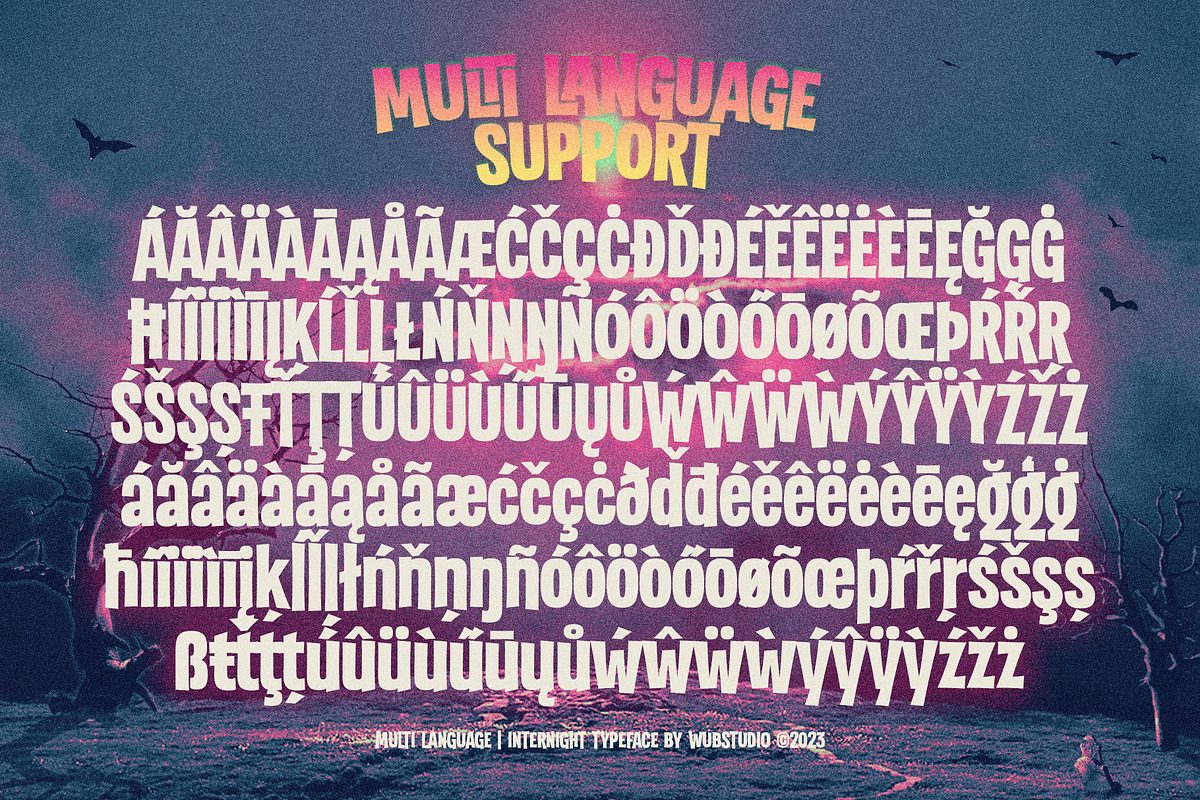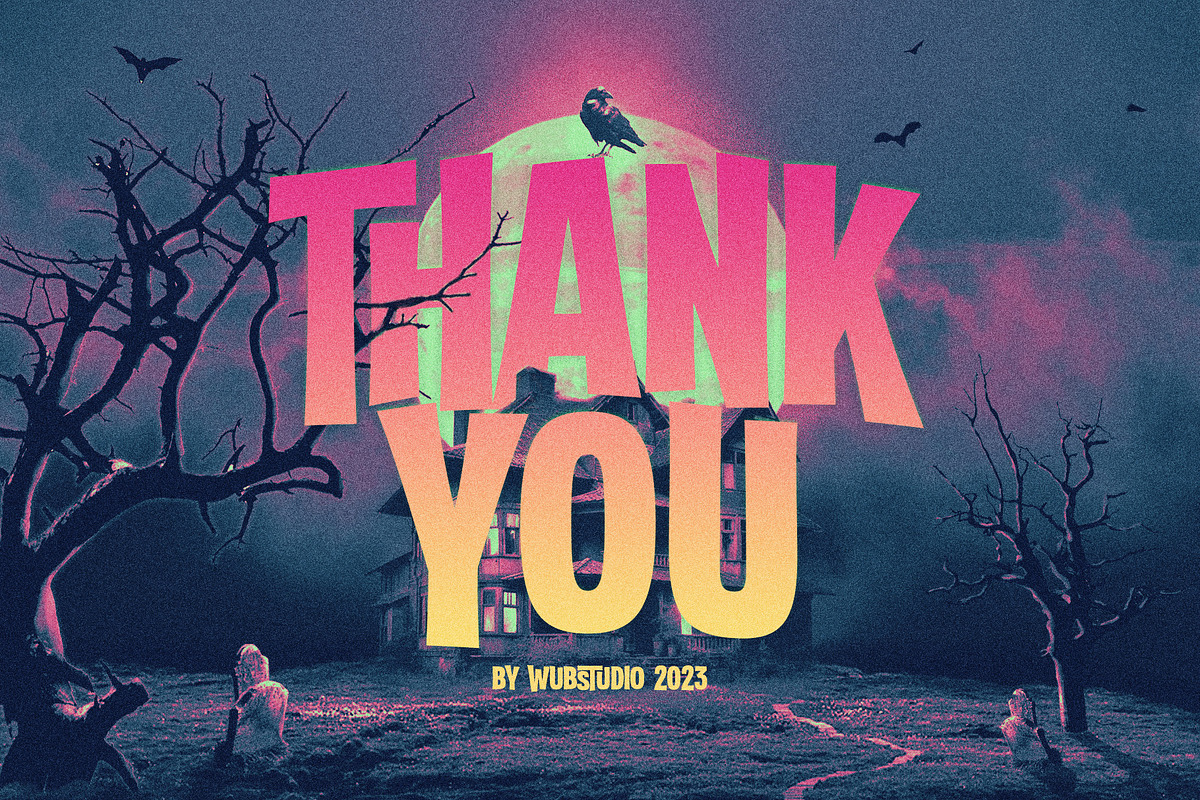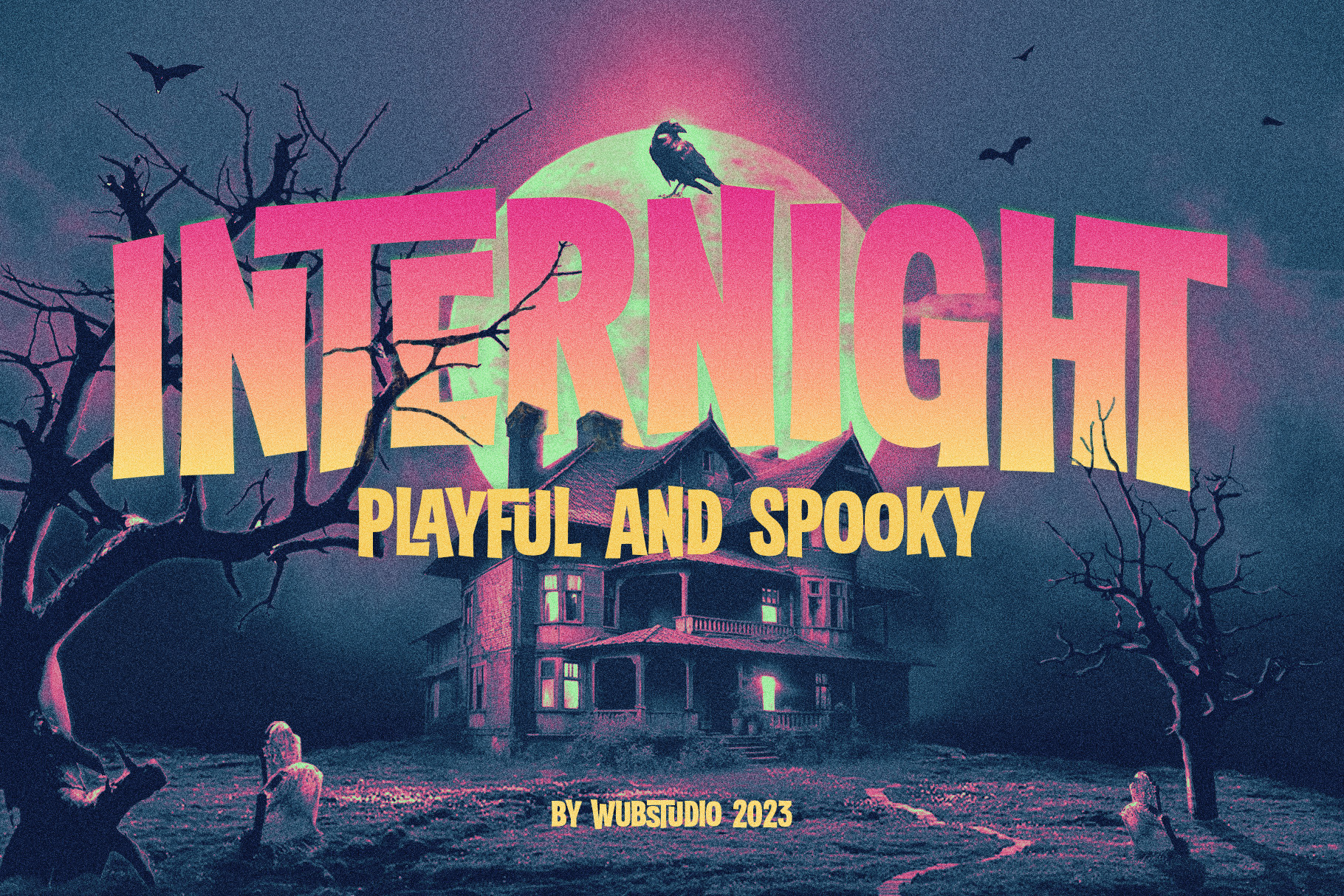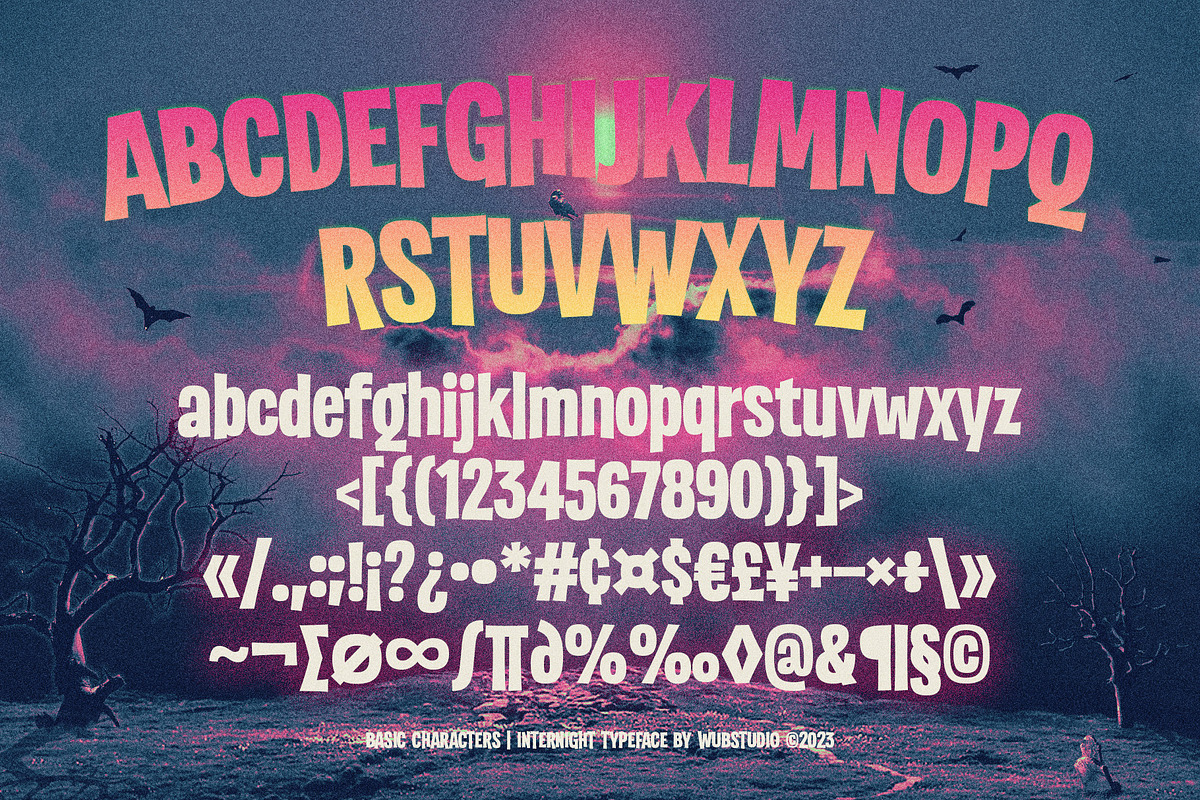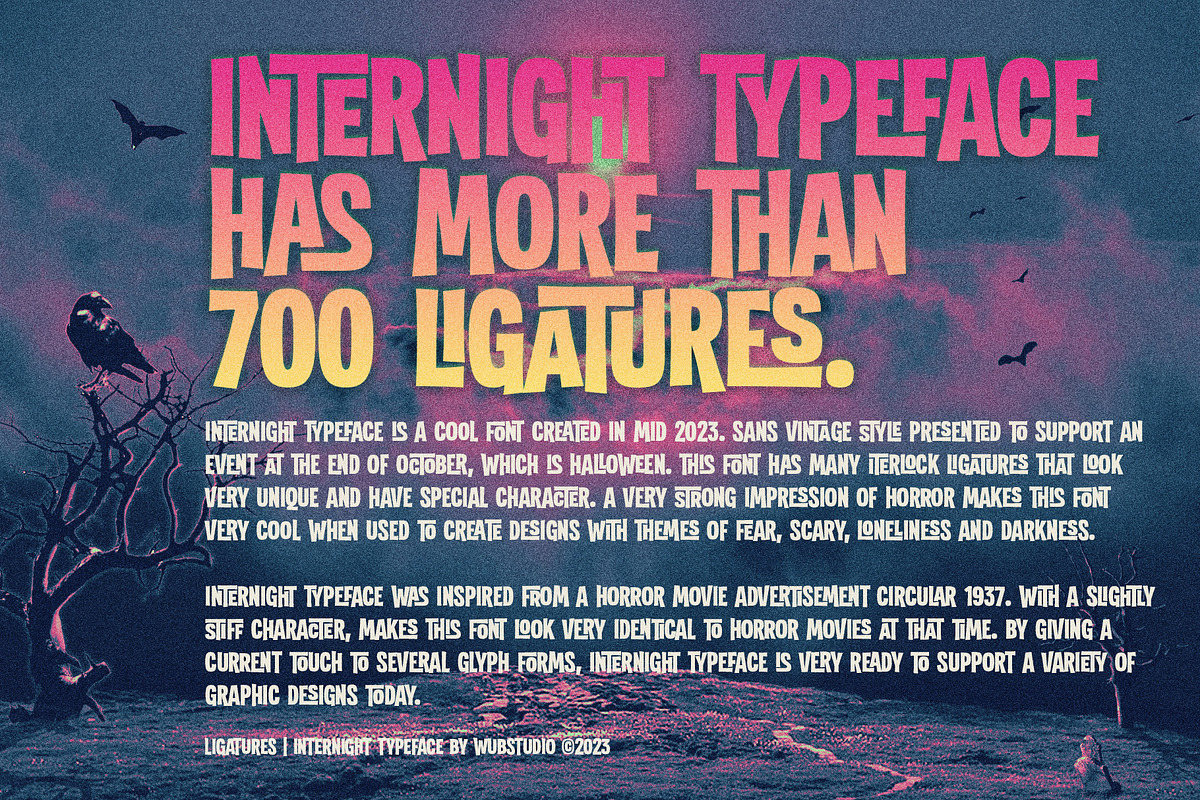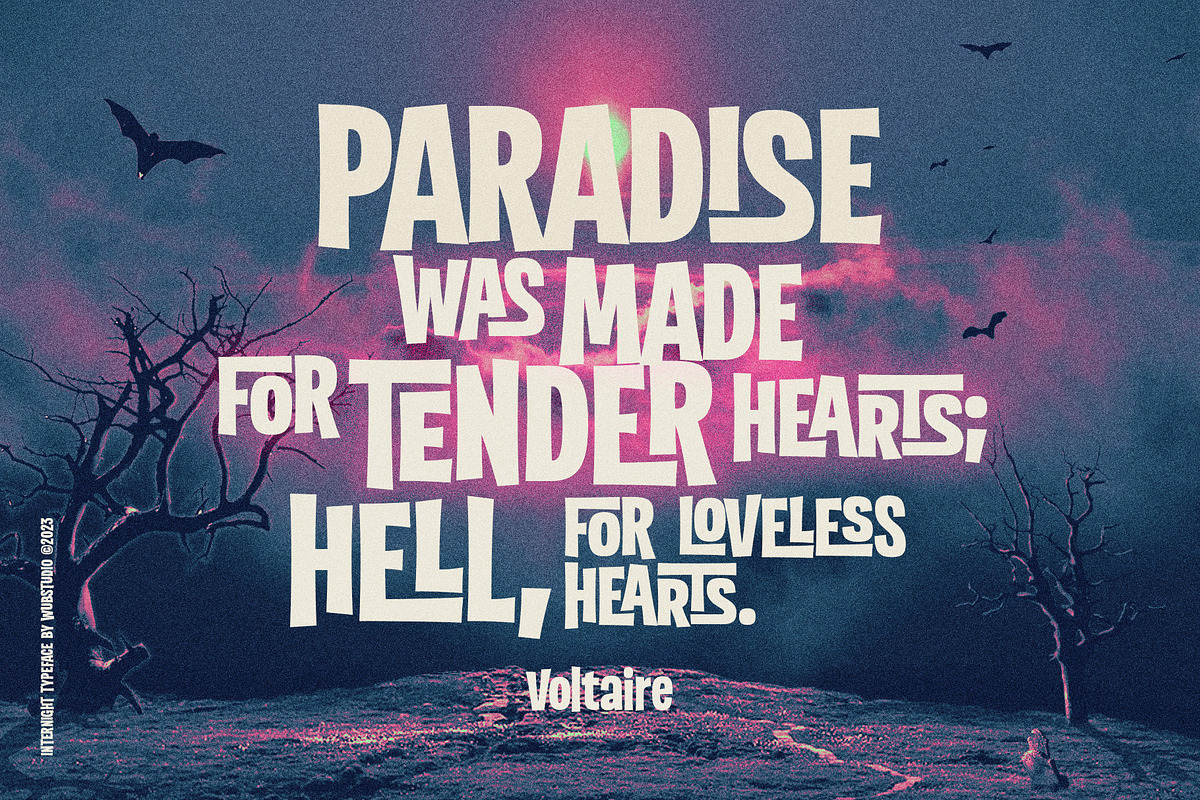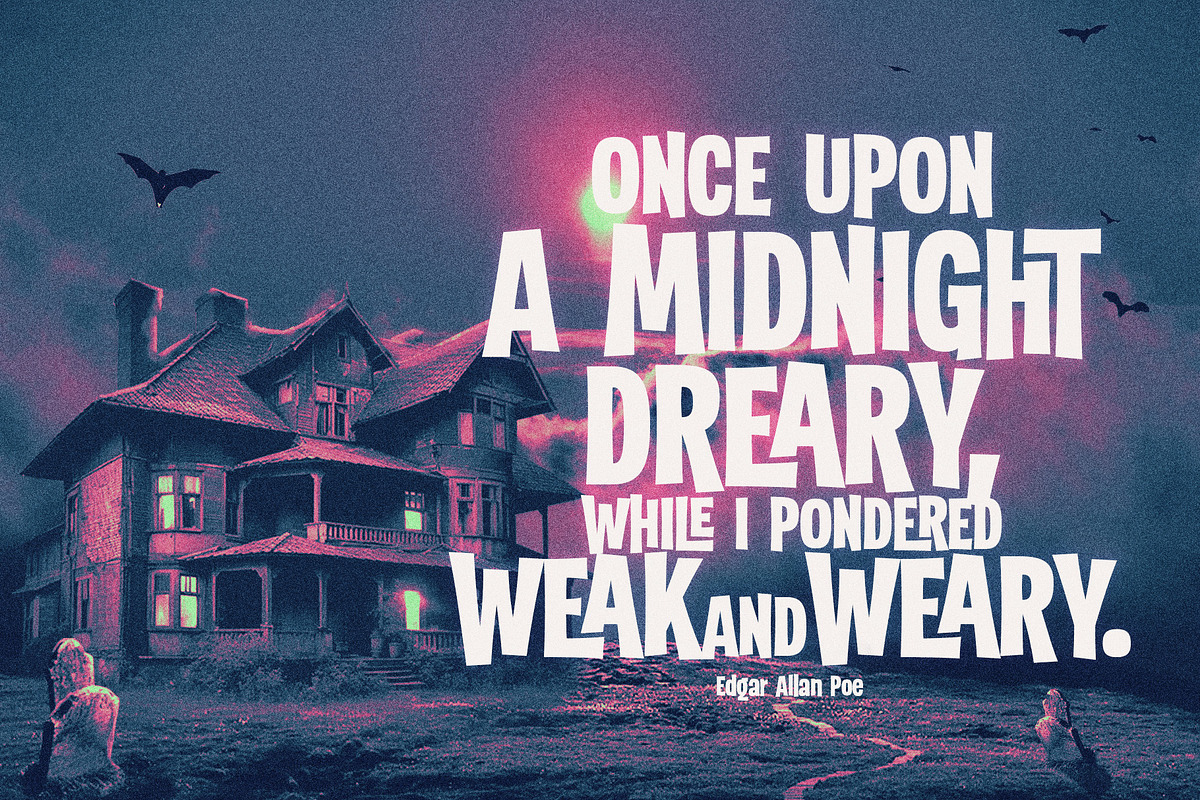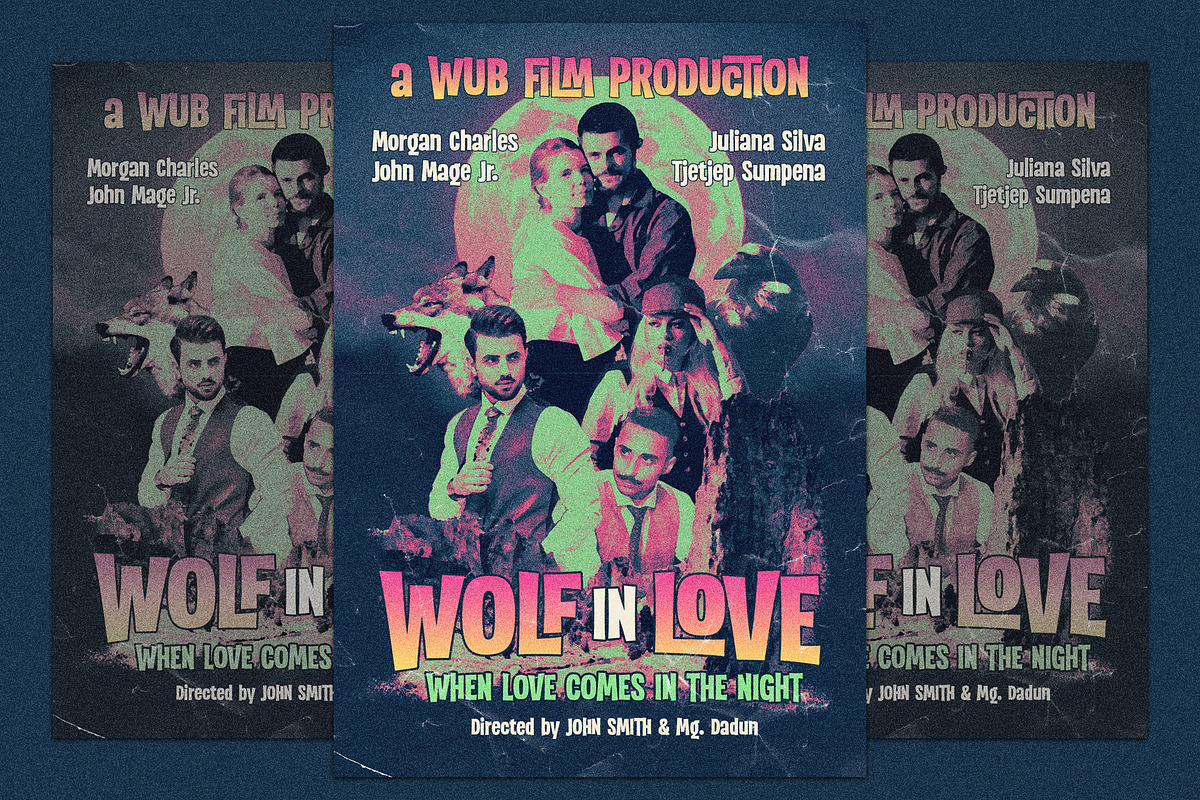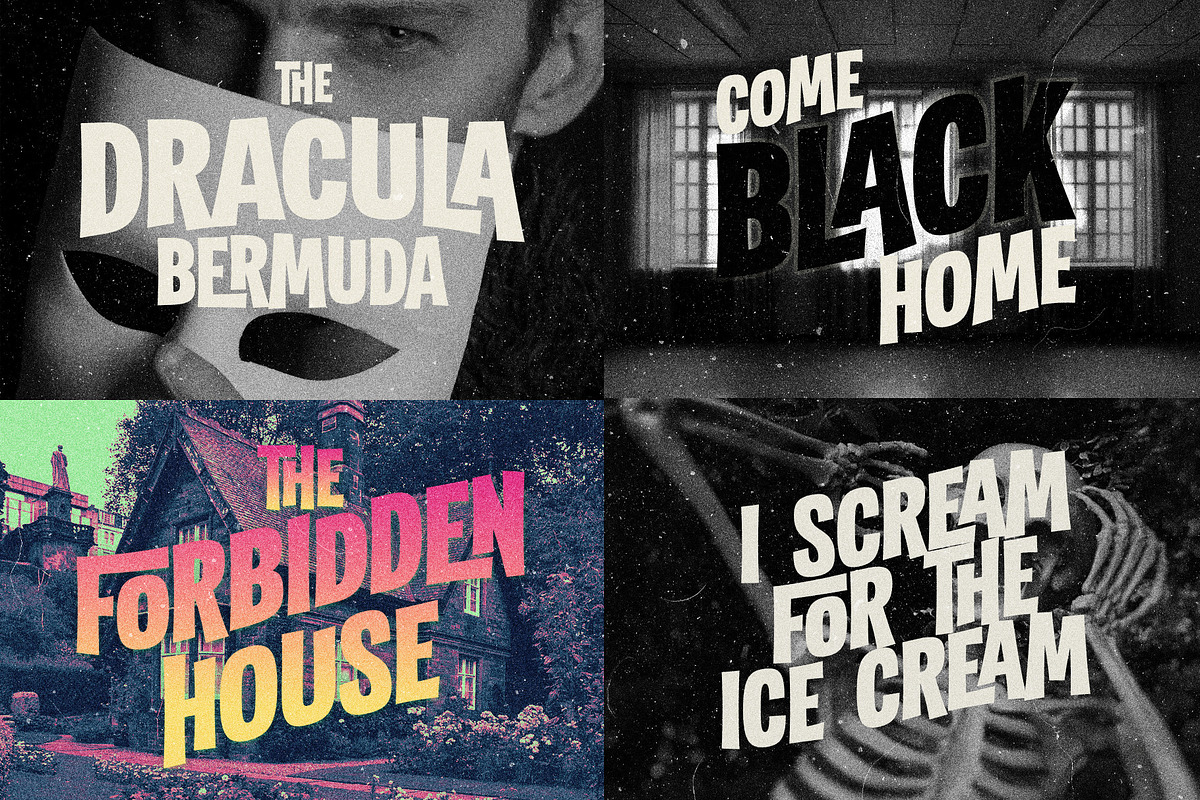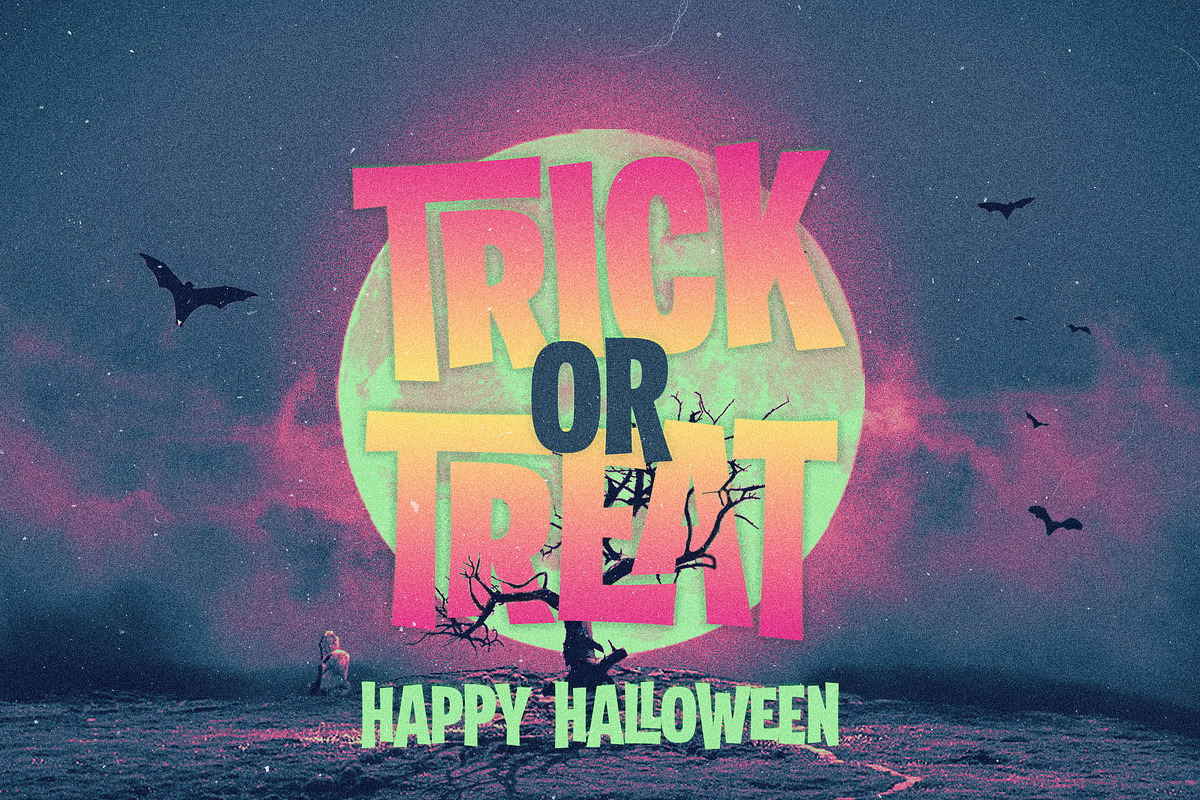
Internight Typeface - for Halloween
Internight typeface is a cool font created in mid 2023. Sans vintage style presented to support an event at the end of October, which is halloween. This font has many iterlock ligatures that look very unique and have special character. A very strong impression of horror makes this font very cool when used to create designs with themes of fear, scary, loneliness and darkness.
Internight typeface was inspired from a horror movie advertisement circular 1937. With a slightly stiff character, makes this font look very identical to horror movies at that time. By giving a current touch to several glyph forms, internight typeface is very ready to support a variety of graphic designs today.